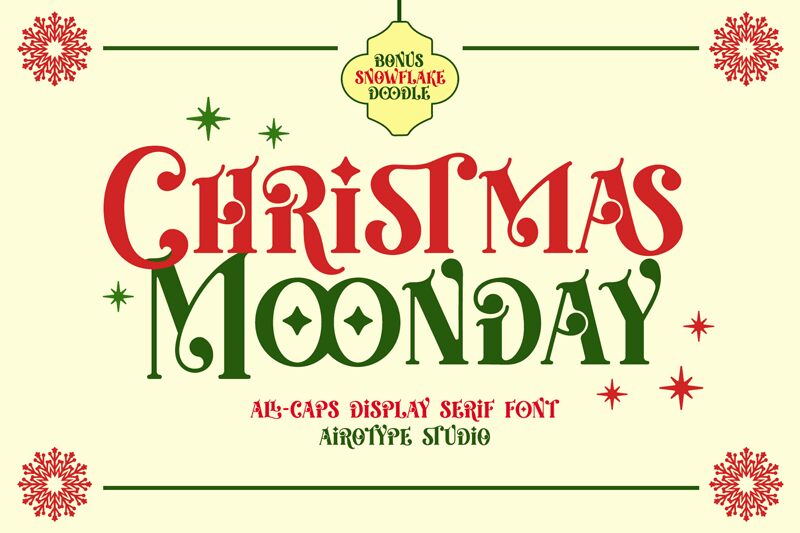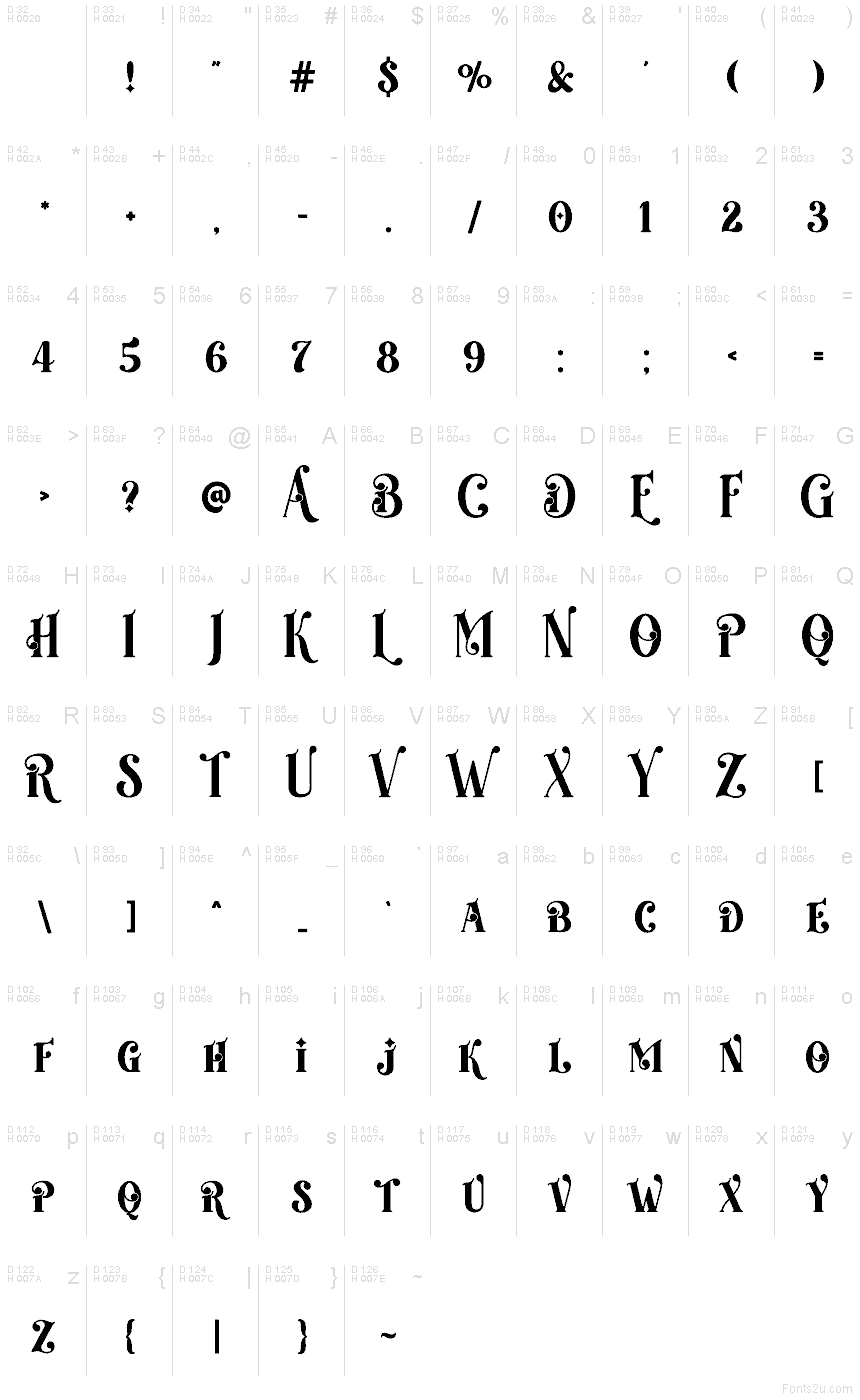
Christmas Moonday
Christmas Moonday font by Airotype Studio is a free Christmas holiday typeface with a wonderfully storybook feel. Tall, slightly crooked letterforms curl into playful swirls, like hand-drawn titles on a vintage winter poster. The strokes feel inky and whimsical, giving headlines a cozy, candlelit glow while still staying clear and readable at larger sizes.
Using Christmas Moonday, your layouts instantly pick up a sense of festive magic—just right for greeting cards, party invitations, advent calendars, social media graphics, school events, and gift tags. This free font shines when you let it take center stage in big, bold titles, then pair it with a simple sans serif for any supporting text.